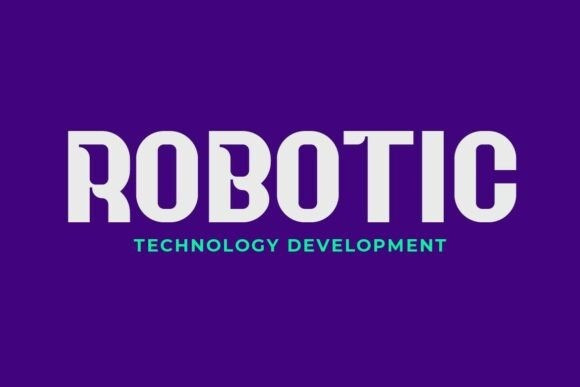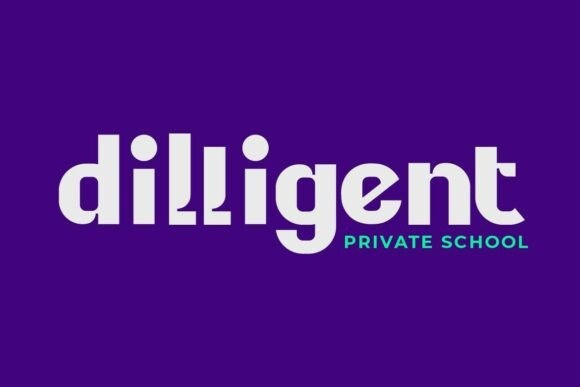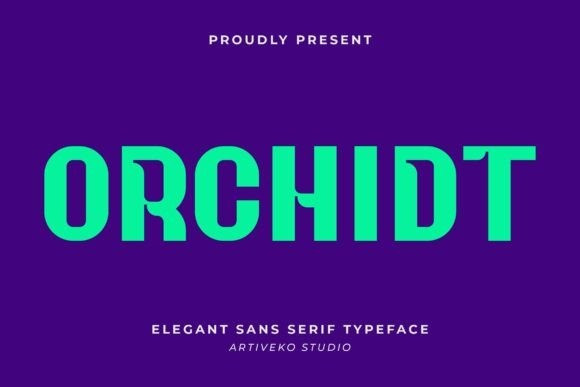
Orchidt Font
Orchidt Font is a modern tech sans serif font by Iwan Alwan, featuring sleek, futuristic letterforms that embody innovation and precision. Perfect for tech branding, UI/UX design, app interfaces, and futuristic visuals, Orchidt combines clean geometry with a contemporary aesthetic. With multilingual support, ligatures, and alternates, Orchidt offers versatility while maintaining its cutting-edge, tech-inspired style, making it ideal for projects that demand a forward-thinking and professional look.
This fonts are great for product logo,wedding card logo, clothing brand logo, Vintage design and much more.